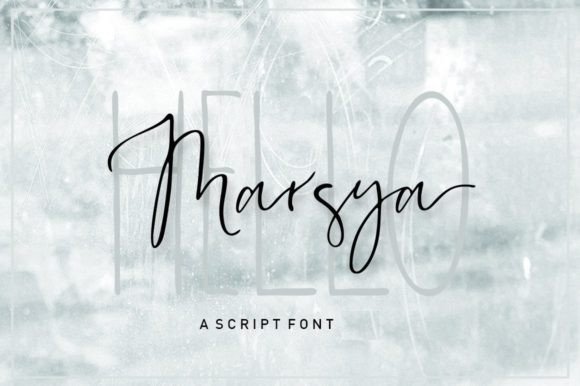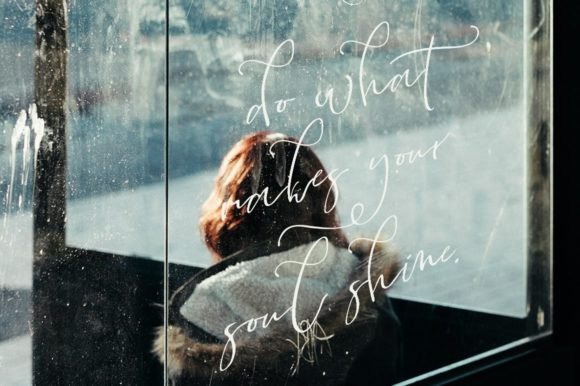
About Marsya Font
“Marsya” is not just a font; it’s a lovely and modern calligraphic script that reflects meticulous craftsmanship and intricate detailing. Designed to be a valuable asset in your font library, “Marsya” has the potential to enhance a wide range of creative projects. The PUA encoding feature ensures that accessing all glyphs and swashes is a seamless process, providing designers with ease and flexibility for customization.
The loveliness and modernity of “Marsya” are evident in its calligraphic script design. Each letter is neatly crafted and detailed, contributing to an overall aesthetic that is both elegant and contemporary. This makes it an ideal choice for projects that require a touch of sophistication and a modern flair.
The font’s potential to enhance any creation becomes a standout feature. Whether used in branding, invitations, or other design projects, “Marsya” brings a sense of beauty and style. It becomes a versatile tool in your creative toolkit, allowing for a wide range of design possibilities.
With PUA encoding, “Marsya” becomes even more powerful. Designers can effortlessly access all the glyphs and swashes, offering creative freedom and the ability to tailor the font to suit the unique requirements of each project.
In summary, “Marsya” is not just a font; it’s a design companion that brings a lovely and modern touch to your creative projects. Let it be the choice for enhancing your designs with elegance and style. With “Marsya,” every creation becomes an opportunity to showcase the beauty of detailed calligraphic script design.